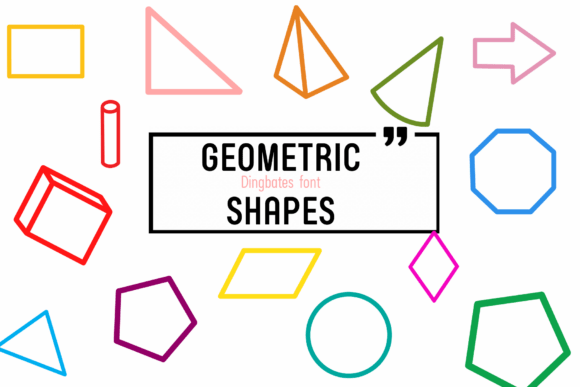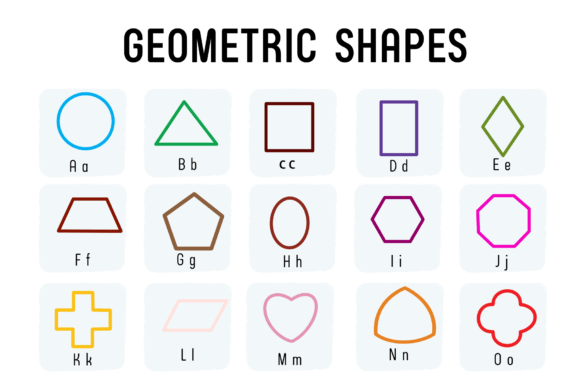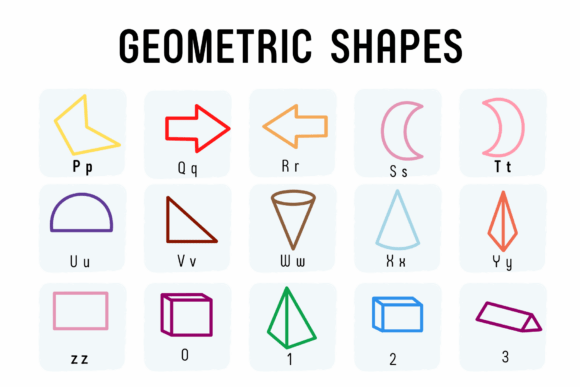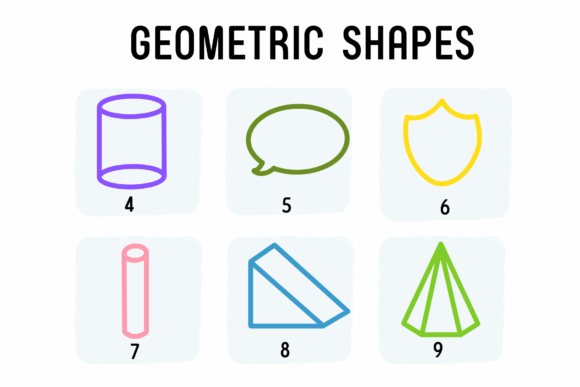
Geometric Shapes Font
About the Geometric Shapes Font
Let us introduce you to Geometric Shapes Font, where timeless design meets modern craftsmanship. Geometric shapes is a dingbats font with an abstract theme. This font can enhance your creative projects such as wedding invitations, DIY, crafts, decorations, logos, and many other creative ideas.
Geometric Shapes Font is ideally suited for headlines, logos, and short, impactful text within branding materials or packaging design. Its abstract nature makes it particularly effective for projects requiring a modern and minimalist aesthetic. Avoid using it for body copy or extended text; its strong geometric forms lack the readability needed for long passages.
The font’s bold and graphic personality pairs well with clean sans-serif fonts like Open Sans or Lato for a balanced contrast. For a more playful feel, consider pairing it with a rounded script font such as Pacifico, while a serif like Merriweather could lend a touch of classic sophistication, depending on the project’s needs.
This font projects a modern, confident, and slightly playful energy, best suited to brands that wish to convey innovation and a clean, visually engaging style. Avoid using it where a softer, more traditional feel is desired.
Geometric Shapes Font Usage Examples
Geometric Shapes Font Example